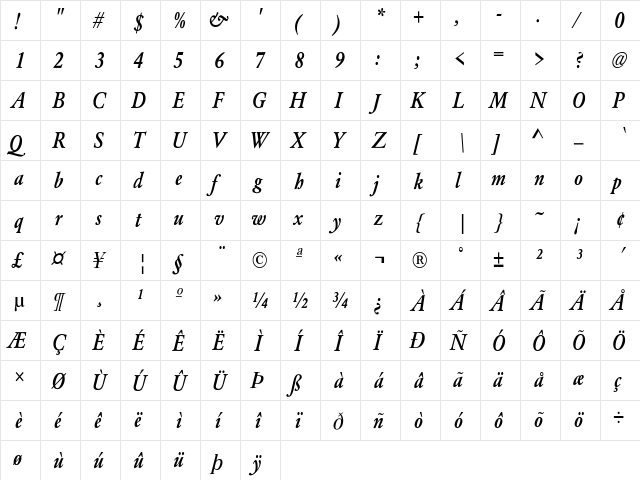
GaramondMediumCnd-Normal-Italic Regular
Design Context for GaramondMediumCnd-Normal-Italic Typeface
GaramondMediumCnd-Normal-Italic offers clean, dependable letterforms without strong stylistic allegiance, making it a practical choice for designers who need flexibility. The slanted form adds forward momentum and visual energy.
Pro Tip: Try GaramondMediumCnd-Normal-Italic for annotation and caption copy alongside an upright companion — the contrast in angle creates a dynamic but ordered typographic system.